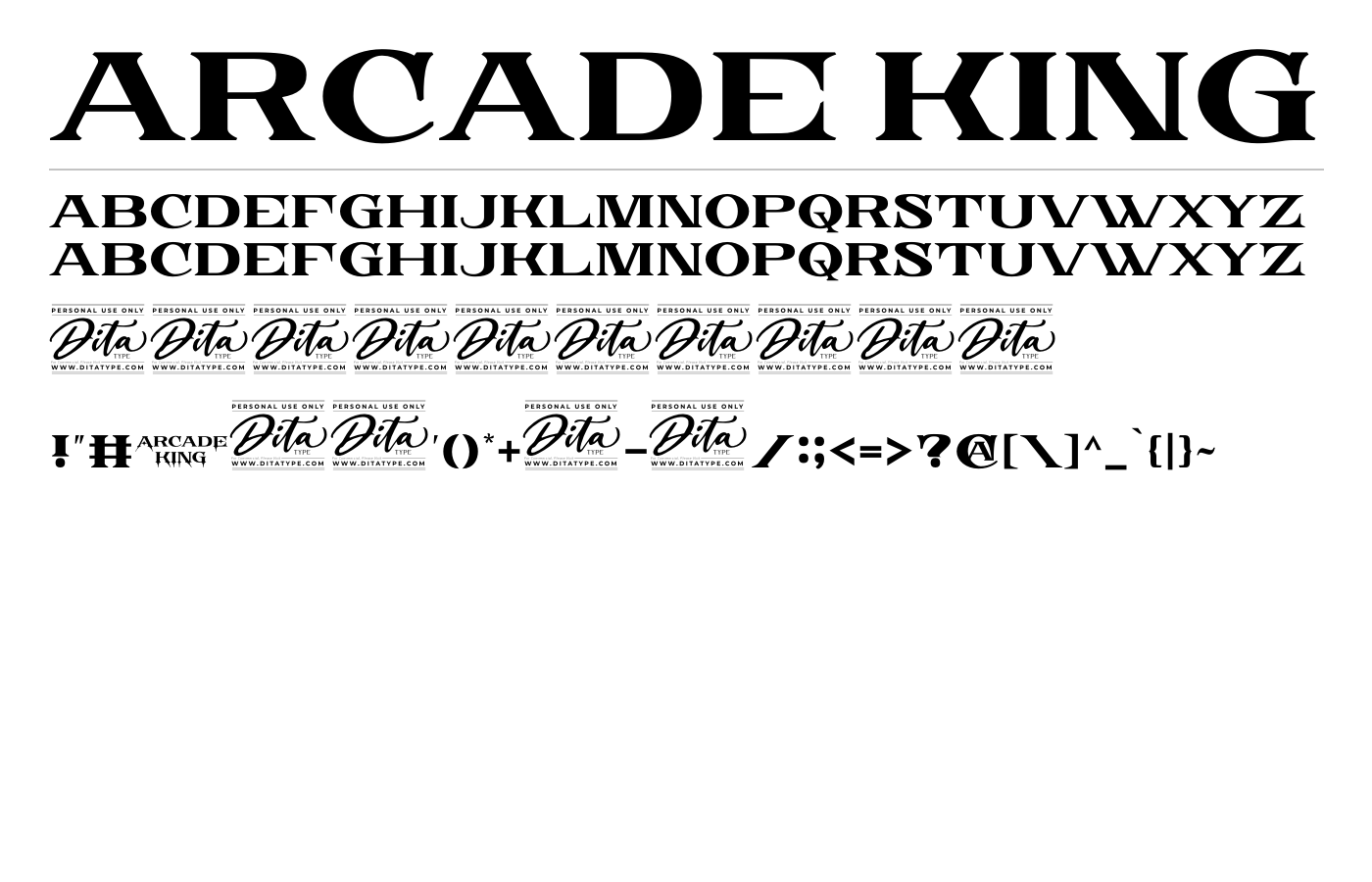
Arcade King is a bold serif font with a strong presence, featuring thick and thin stroke contrasts that give it an elegant yet commanding look. Its sharp, bracketed serifs and distinct letterforms evoke a classic, vintage feel perfect for logos, headlines, and branding that require a sense of authority and timeless style. This font works wonderfully for projects aiming to blend sophistication with boldness, such as fashion, editorial, or luxury-themed designs.
Arcade King Font
About Arcade King Font
| Font family | Arcade King Font |